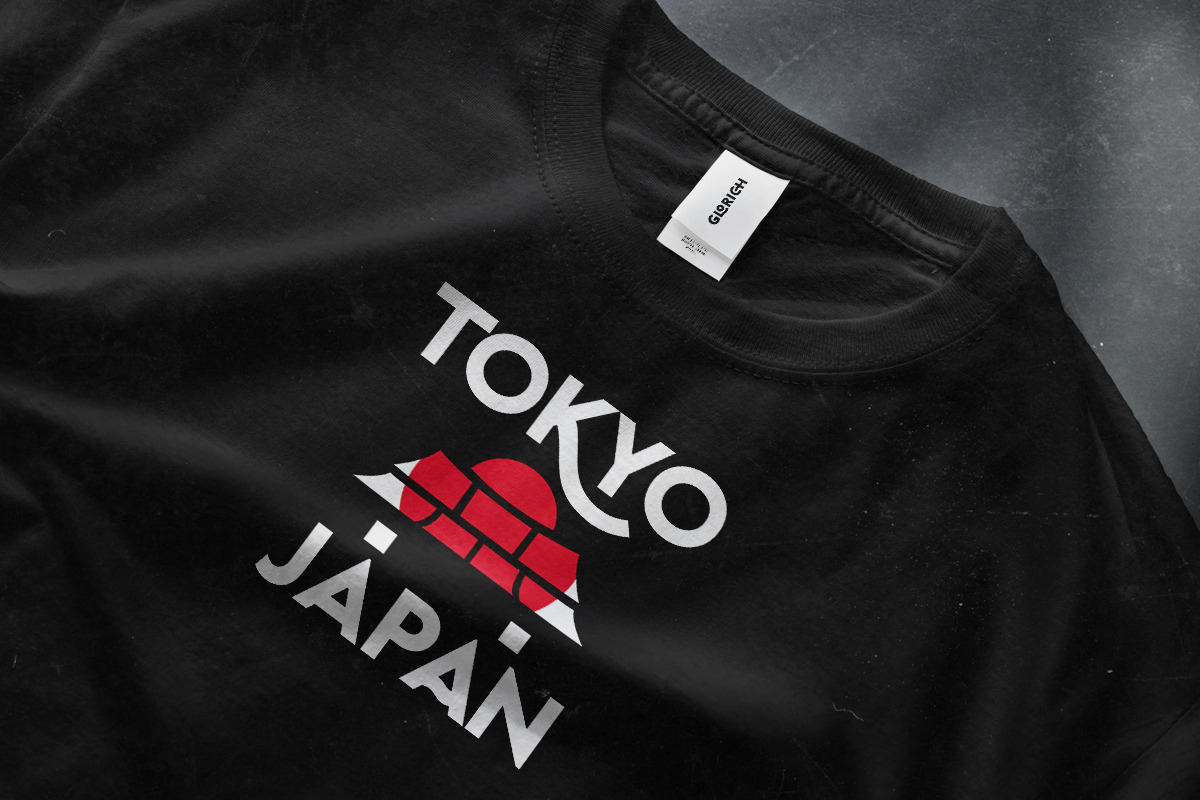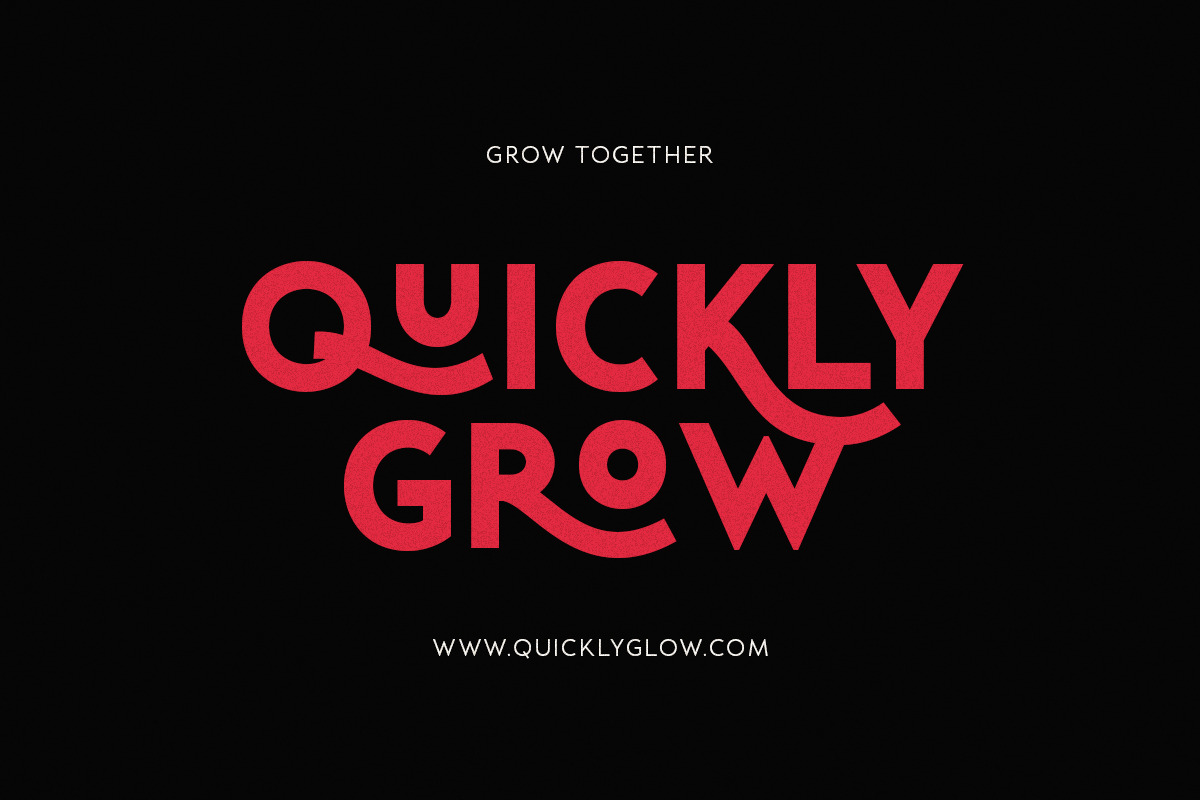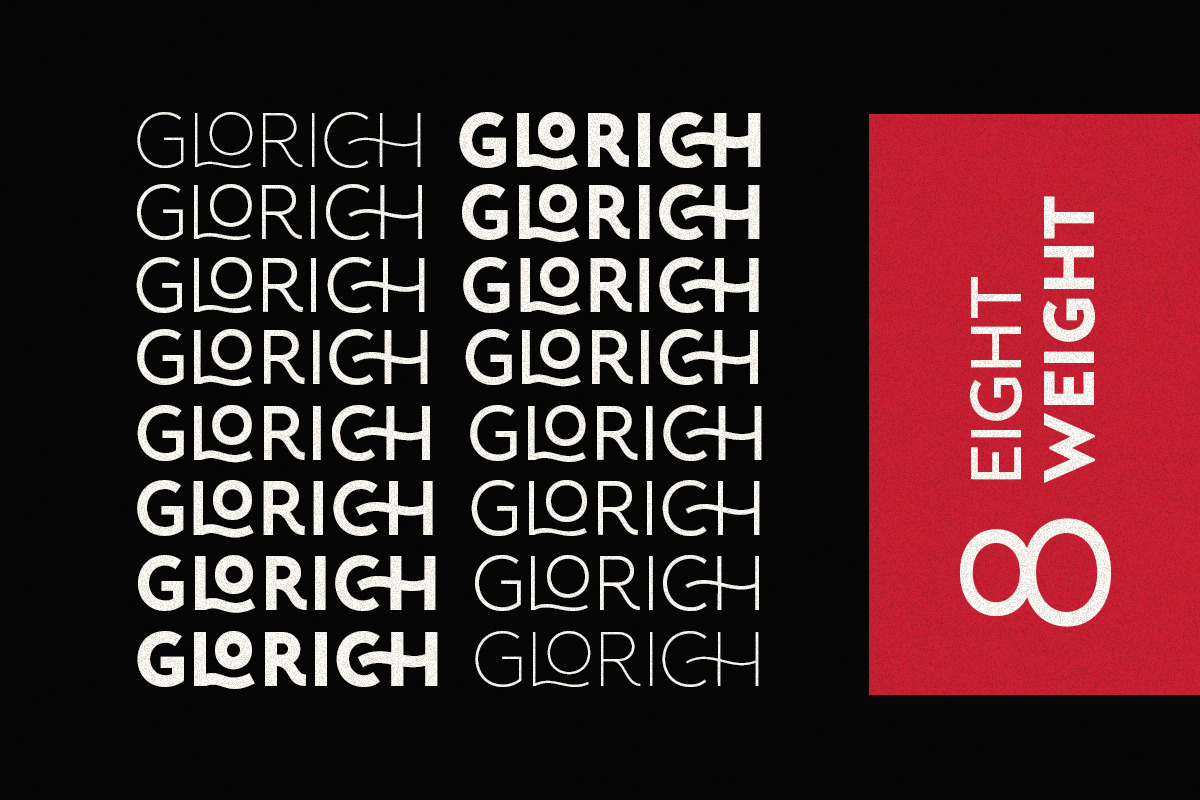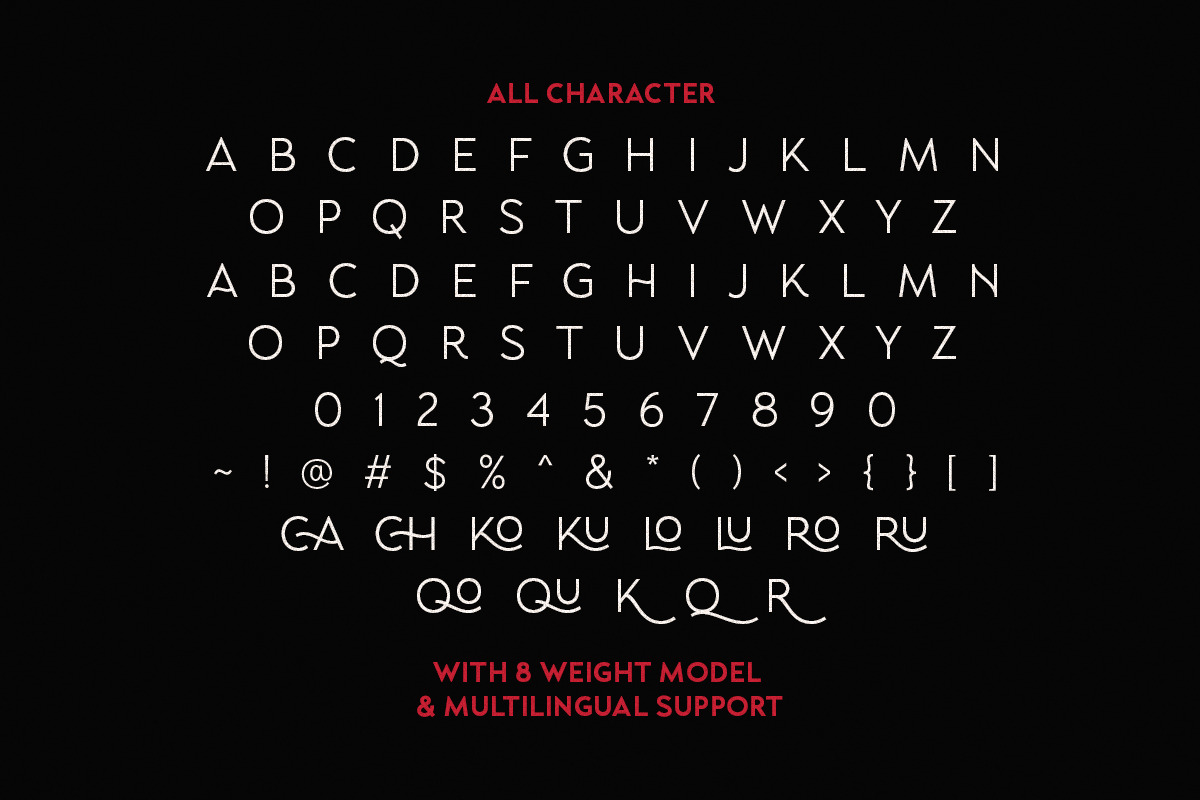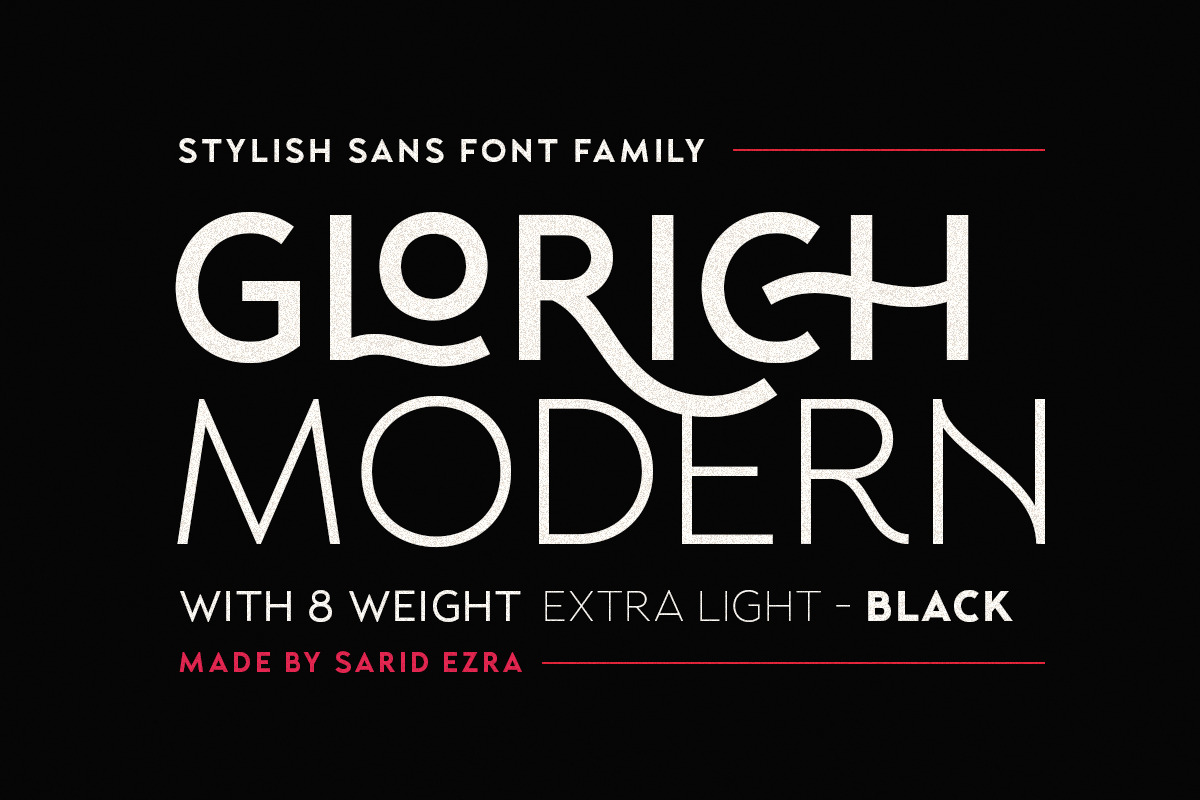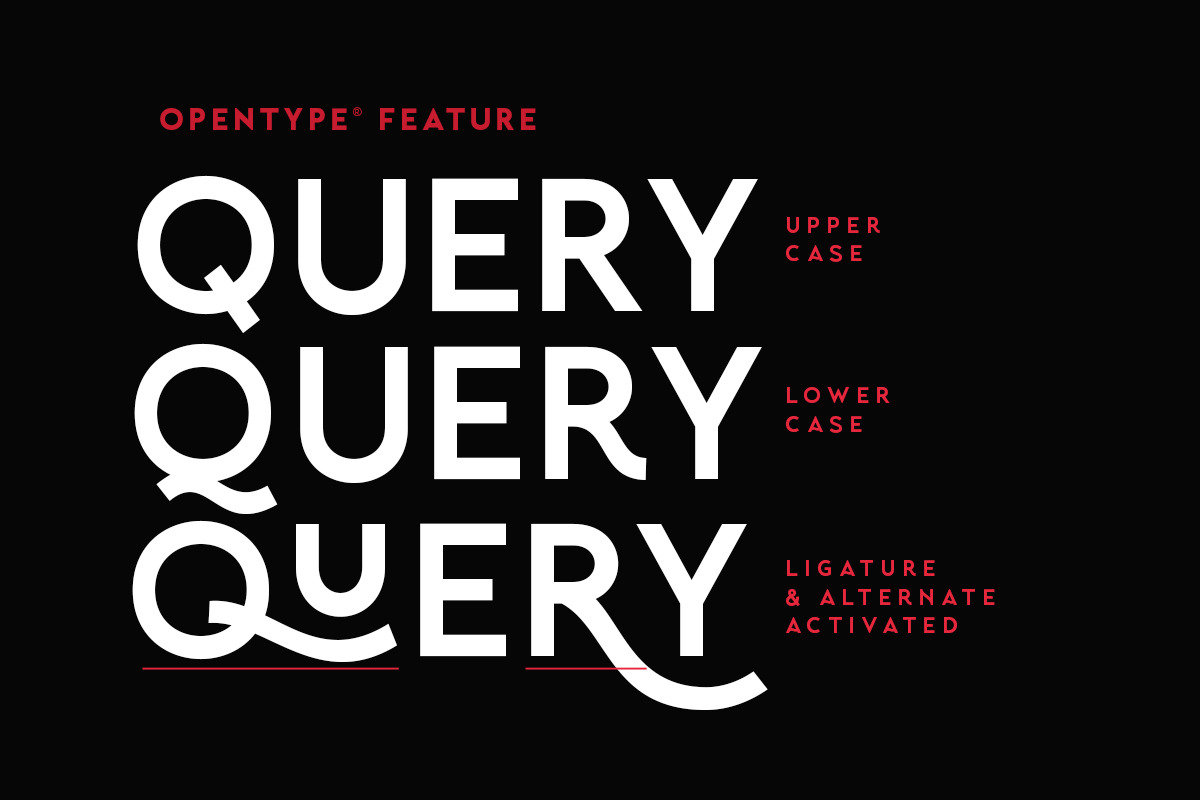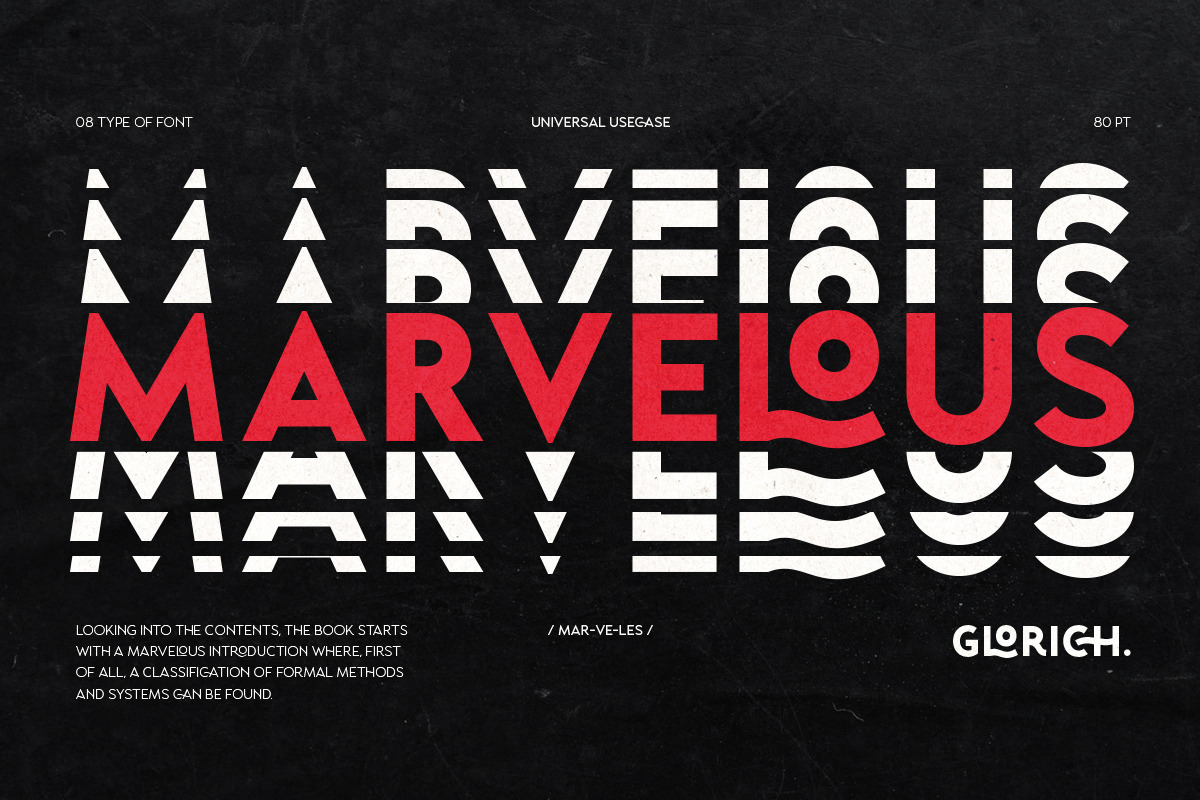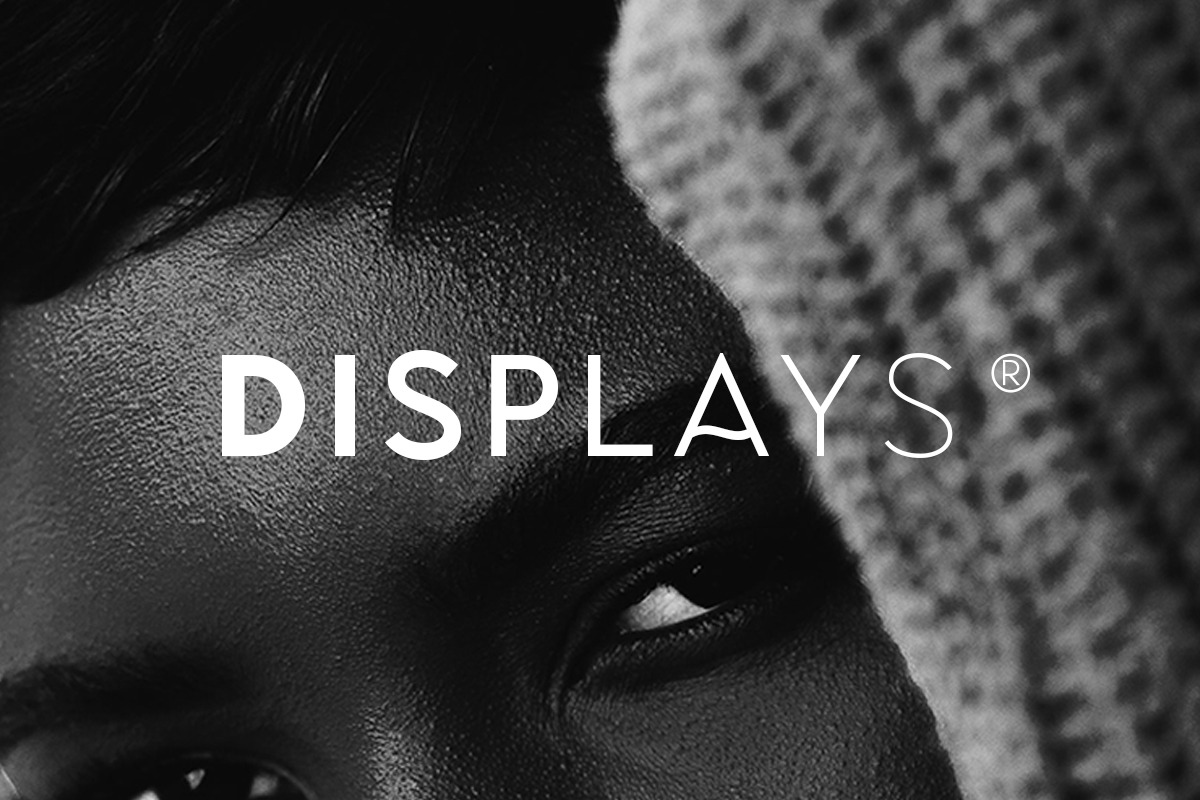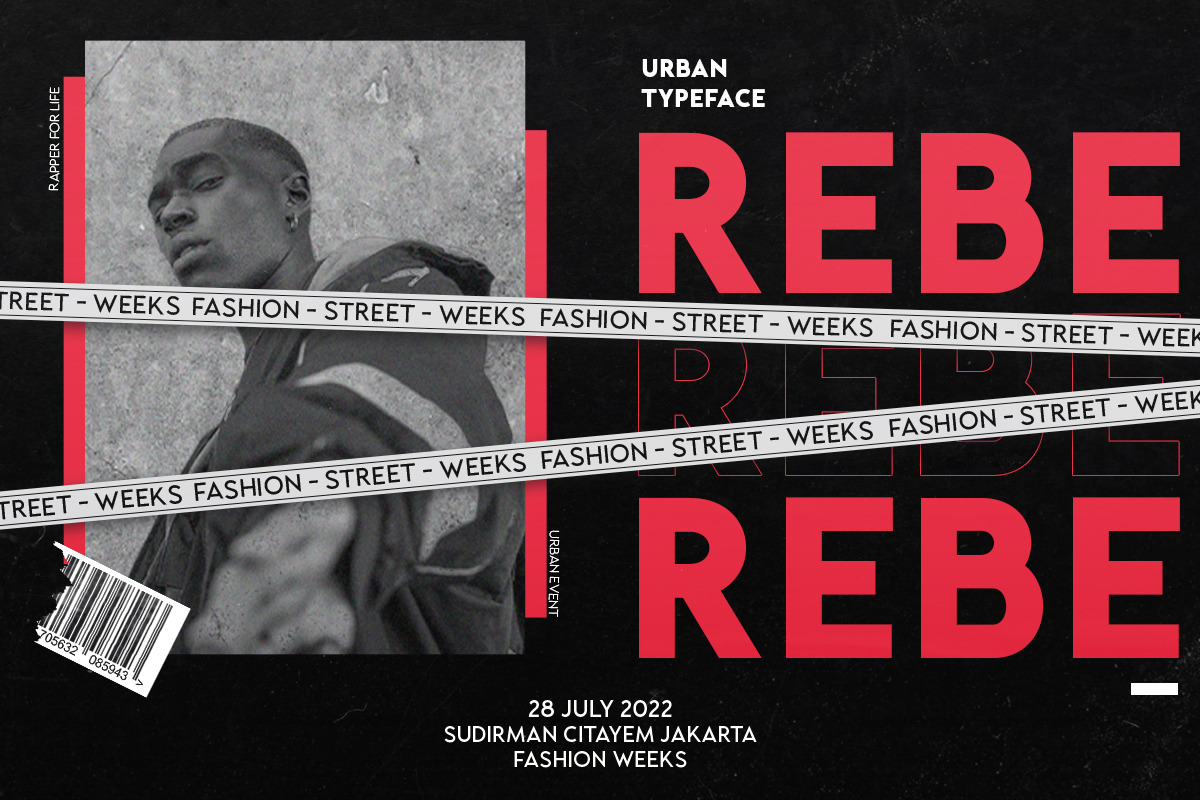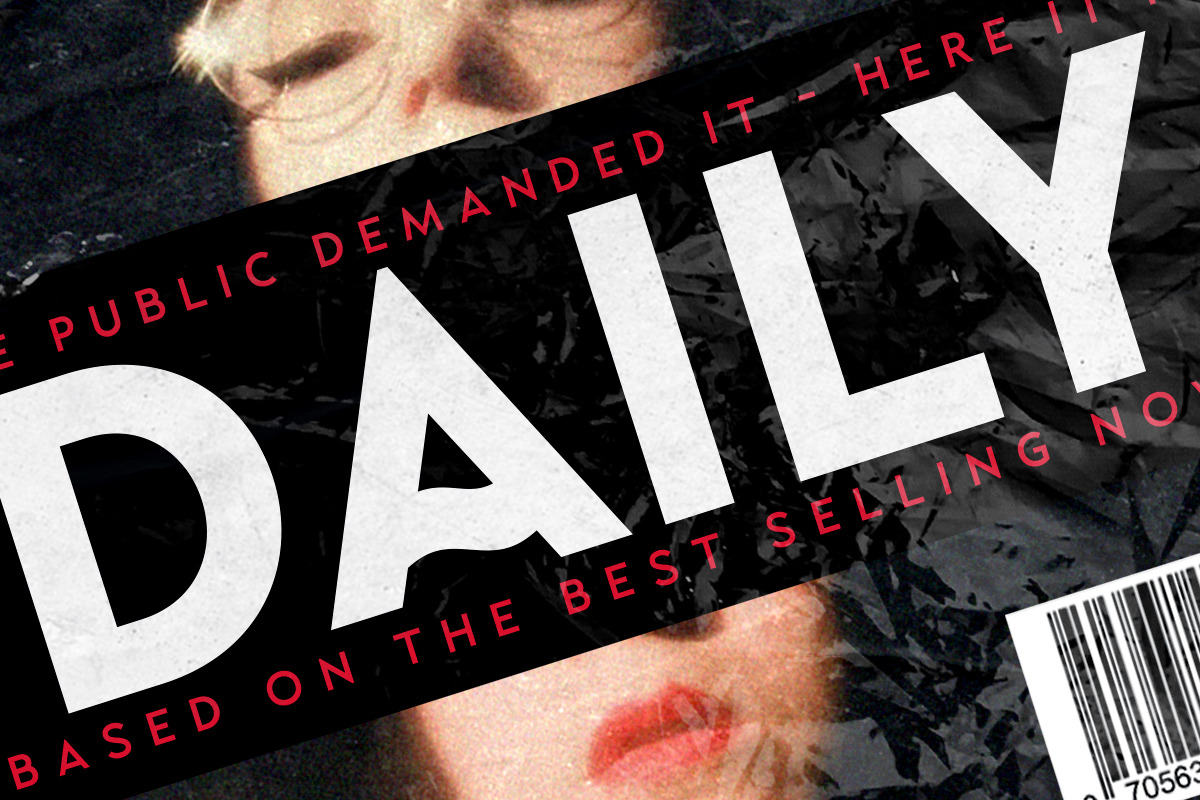
Glorich - Stylish Sans (8 FONTS)
Introducing, Glorich, a modern sans family with alternates and ligatures!
Glorich is a classic and modern all caps sans with ligatures and alternates! The other special thing about this font is for specific alphabet you can find slightly different between the uppercase and lowercase! This font fits in any project and design. You can use it for a tittle, logo, quotes, or become a pairing in any font. You will never go wrong with this font. This font also support multi language!